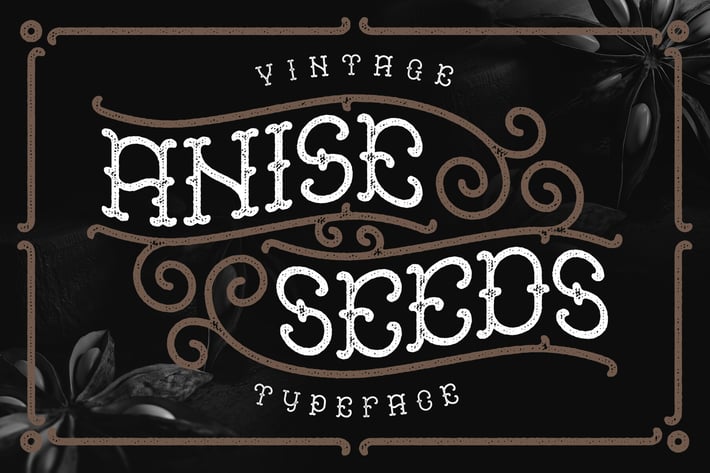
Anise Seeds typeface
Hi, introducing a vintage typeface named "Anise Seeds". It includes two versions - textured rough and smooth clean. This font is available in OTF & TTF formats and have some multilingual support.